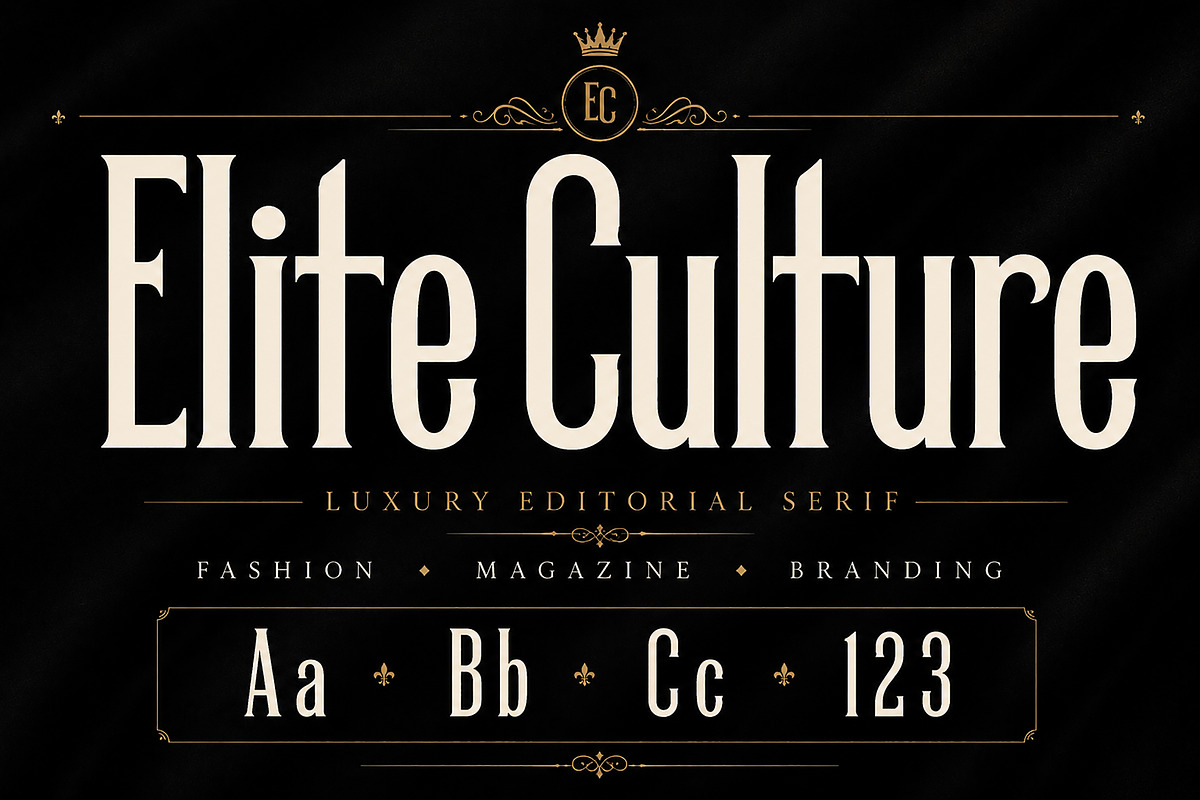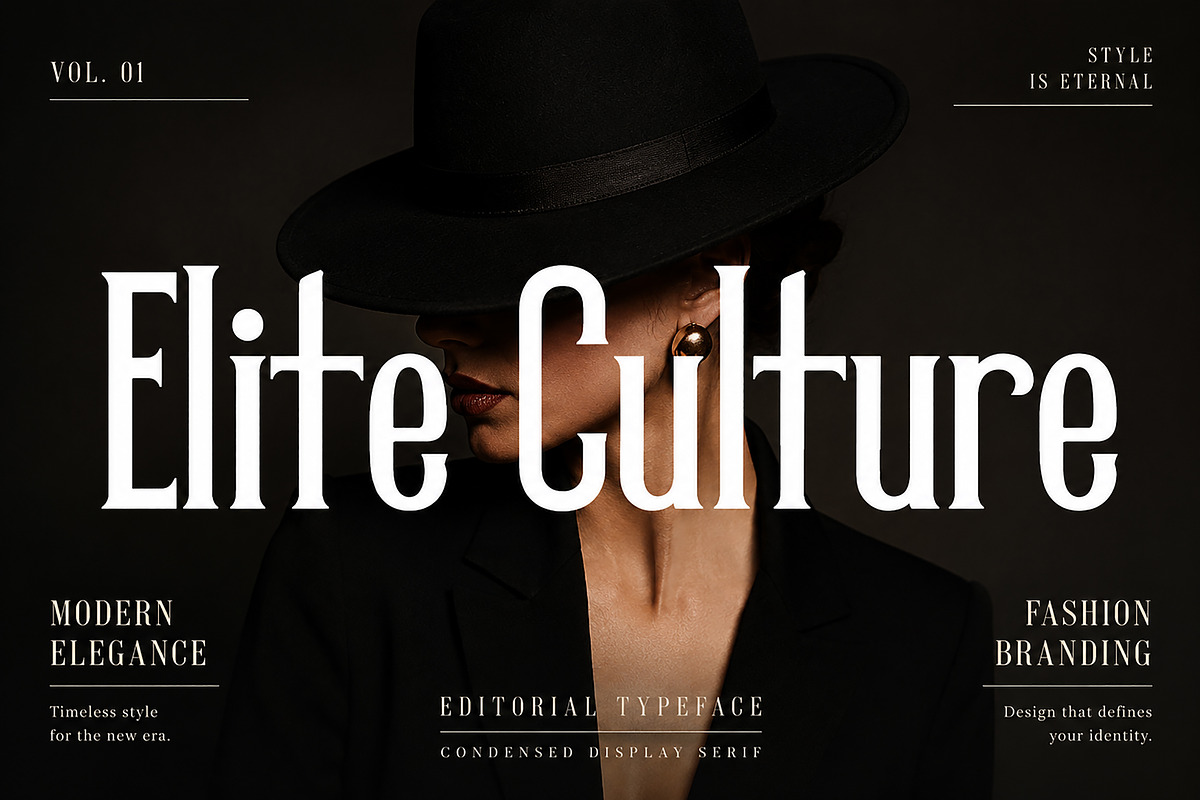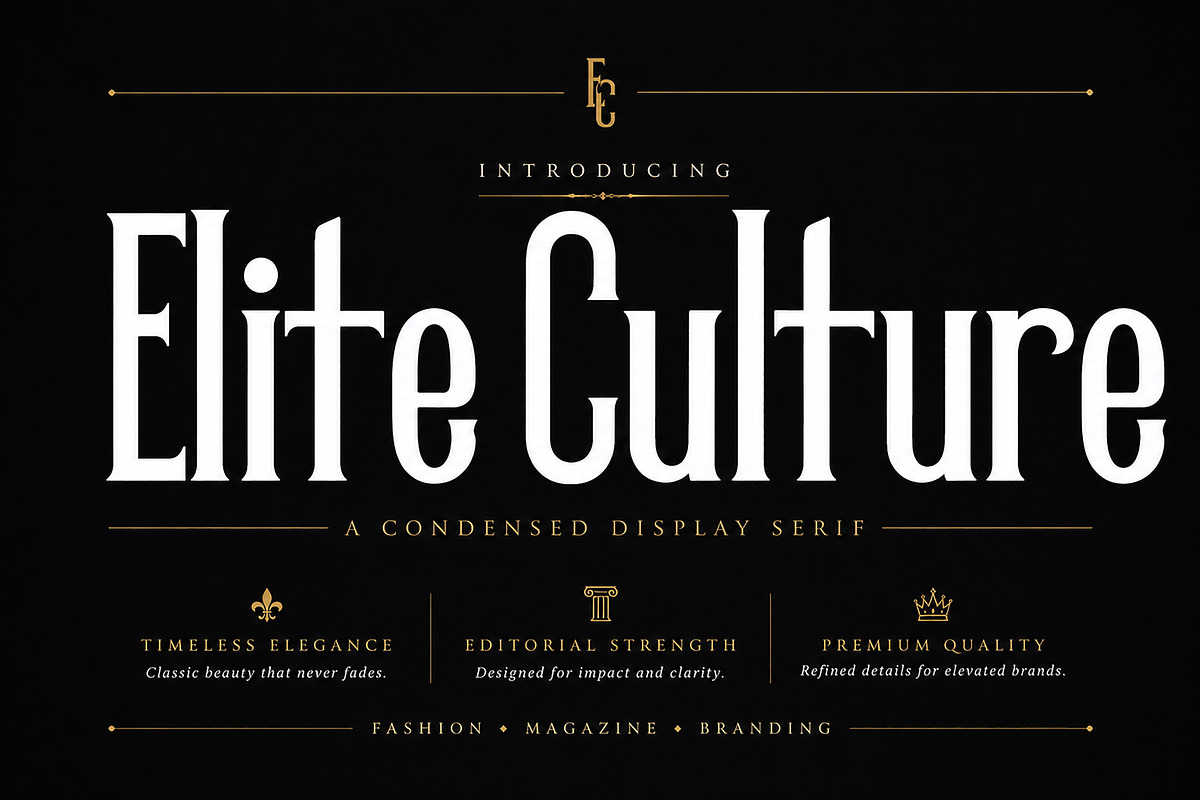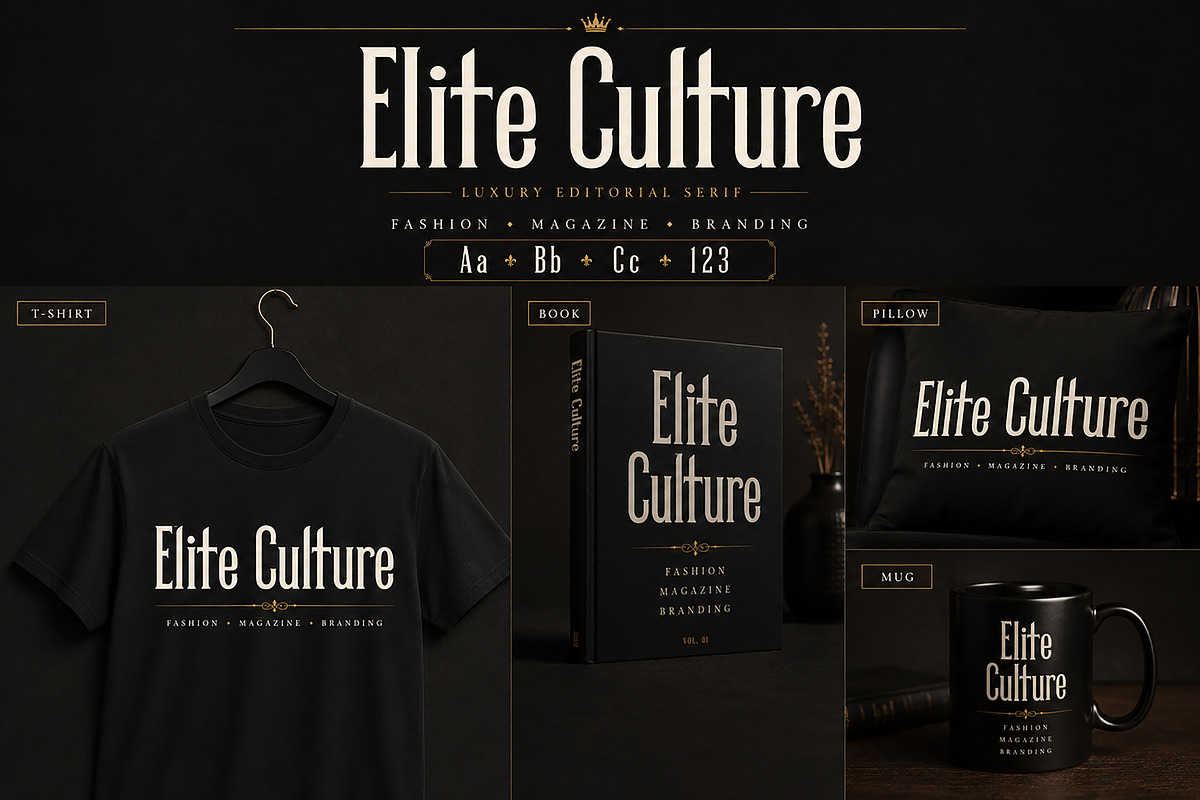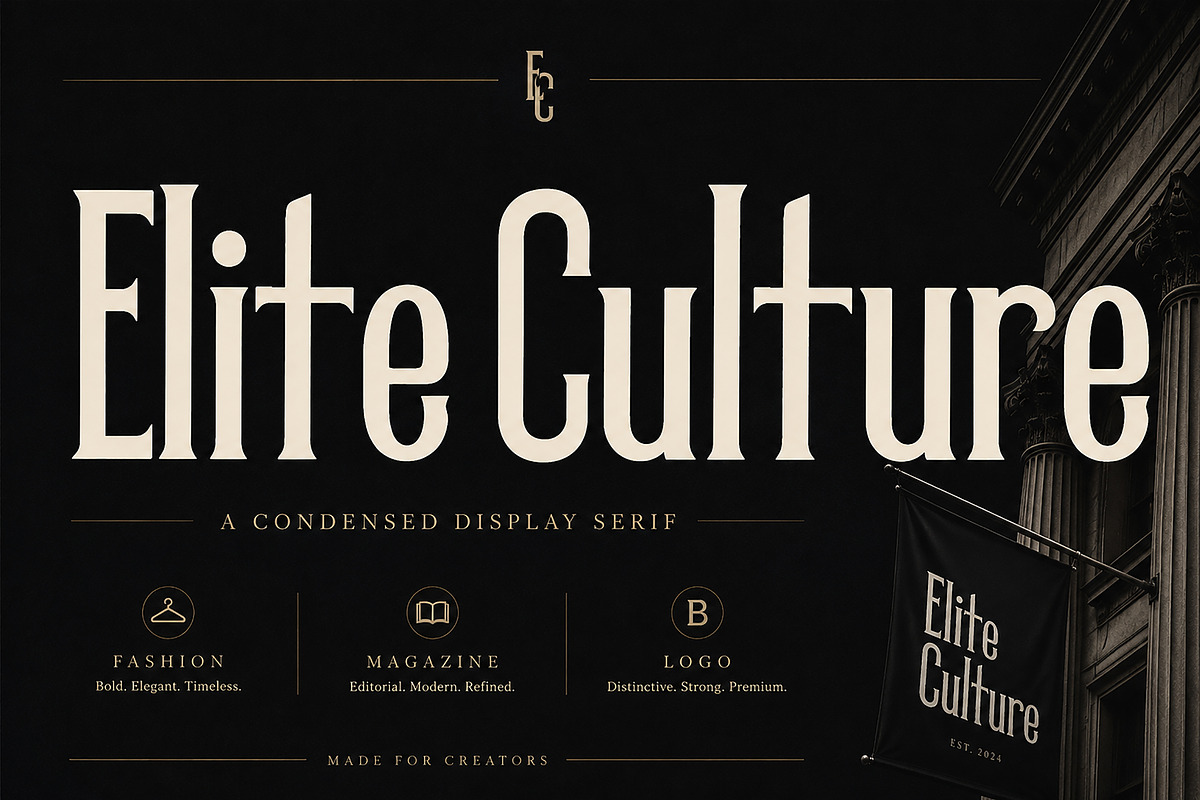
Elite Culture
Condensed Serif / Elegant Serif / Editorial Typeface
A tall, elegant condensed serif font with a classy and sophisticated look, perfect for luxury branding, magazine titles, logos, packaging, and editorial designs.
Elite Culture is a refined condensed serif font with a tall, stylish, and elegant personality. Its narrow letterforms, sharp serif details, and classic proportions give it a premium and sophisticated look, making it ideal for designs that need a classy, editorial, or luxury feel.
This font works beautifully for fashion branding, magazine covers, luxury logos, perfume packaging, invitations, posters, book covers, labels, boutique branding, and high-end social media graphics.
Luxury logos, fashion branding, magazine titles, editorial layouts, perfume labels, elegant packaging, wedding invitations, boutique branding, posters, book covers, and premium product designs.